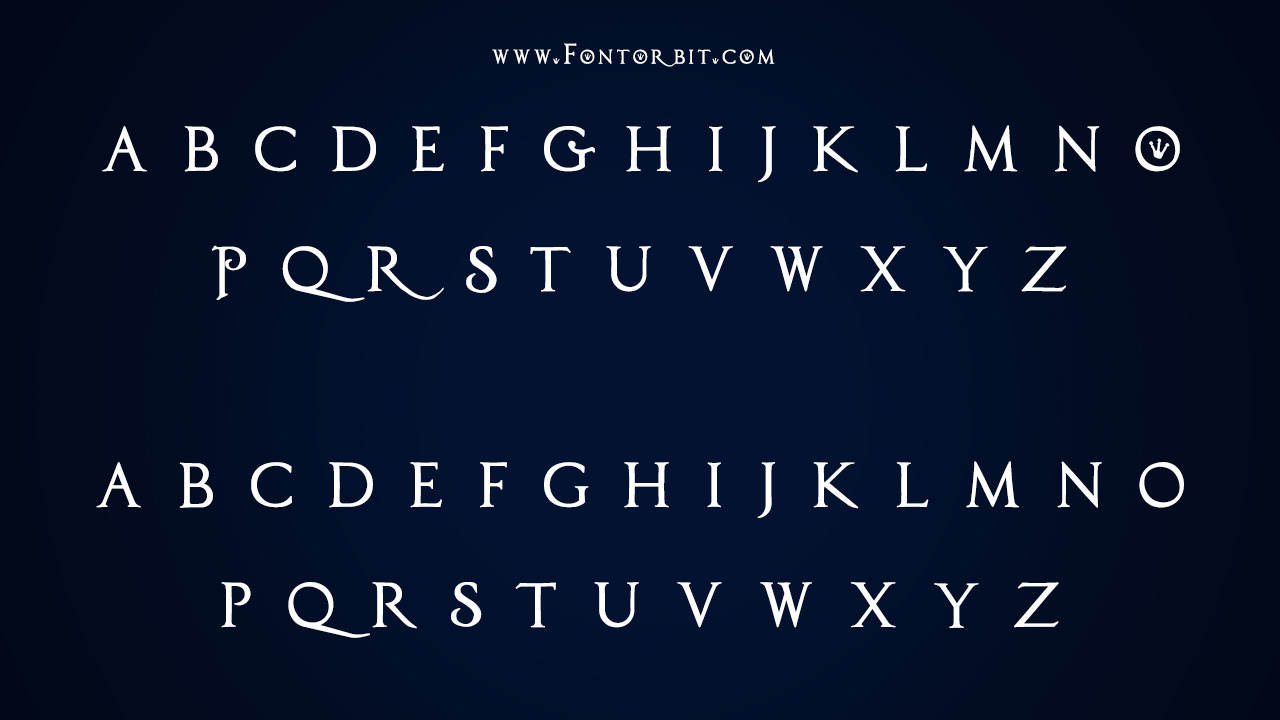
The “Princess and the Frog” font, designed by Juan-e-b, draws inspiration from the Disney movie “The Princess and the Frog.” This elegant, whimsical typeface captures the movie’s enchanting vibe.
While the exact release date of this font remains unclear, its artistic flair aligns with Disney’s creative tradition. The font belongs to a decorative family, ideal for captivating headlines, invitations, and designs requiring a touch of fantasy.
Princess And The Frog Font Family Includes
The font family of “Princess and the Frog” has one unique style, capturing the essence of Disney’s classical and adventurous vibe. Here is a brief look into its characteristics:
– Princess And The Frog Regular
Notable Uses Of Princess And The Frog Font
The Princess and the Frog Font is perfect for various design projects, especially those requiring a magical or fantasy theme. Its usage has been prominent in:
- Wedding invitations inspired by fairytales
- Children’s book covers
- Fantasy-themed party decorations and invitations
This font is ideal for projects that need an elegant, magical touch. Its captivating curves and intricate details make it suitable for fantasy-themed and elegant presentations. Some notable uses include:
- Branding for fairytale-themed events
- Event posters
- Flyers
- T-shirt designs with whimsical themes
- Storybook illustrations
5.Does This Font Include Special Characters?
The font mainly includes standard alphabet characters with some decorative accents.
6.Is The Princess And The Frog Font Available In Different Weights?
No, it usually comes in a single regular weight.